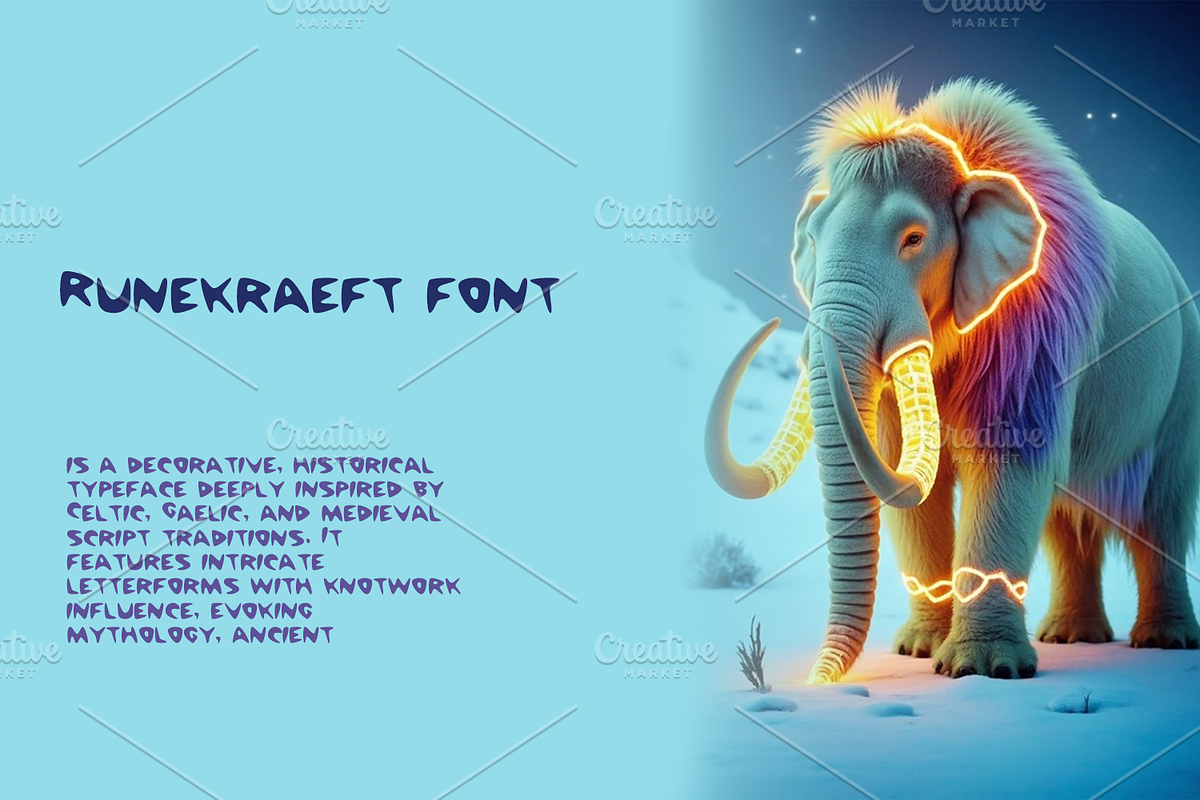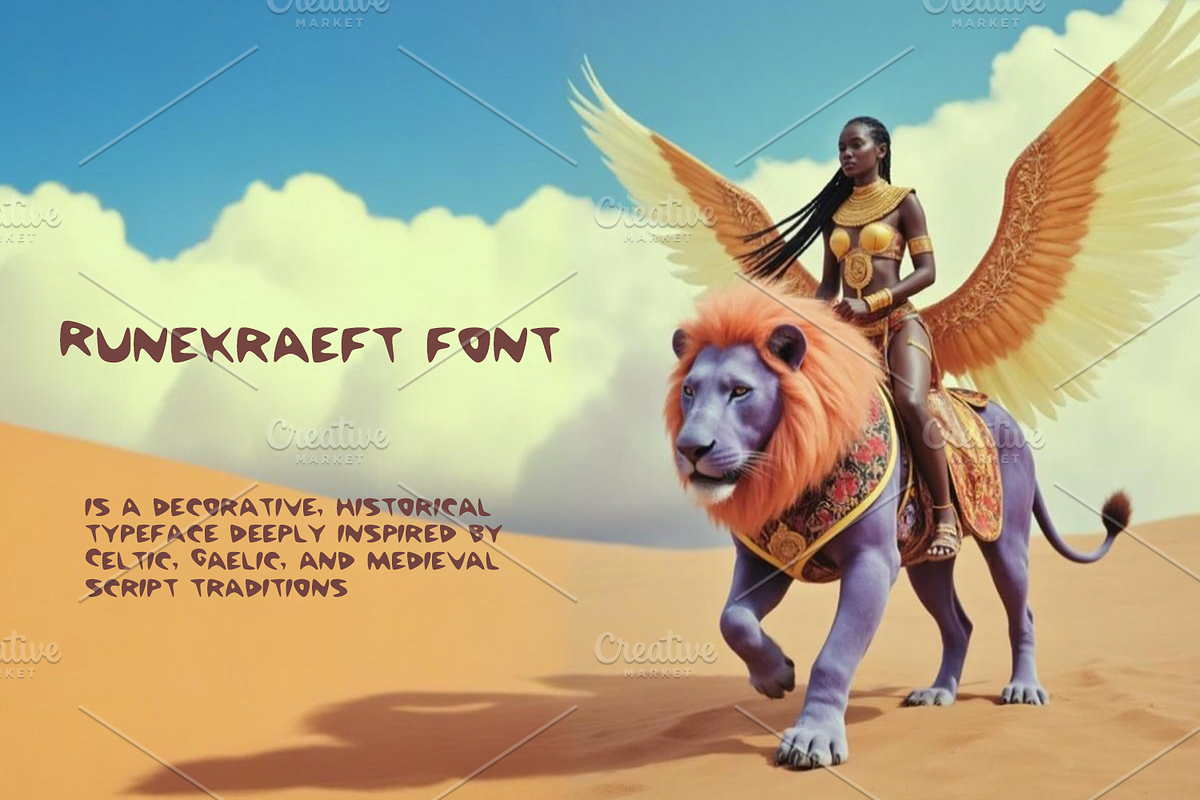
Summon the spirit of ancient legends with Runekraeft—a typeface forged in myth and magic.
With roots in Celtic heritage and echoes of sacred scripts, it brings old worlds to life.
Perfect for fantasy tales, ritual branding, or heroic identities.
Every glyph carries history, art, and mythic energy.
Runekraeft: Where type becomes lore.